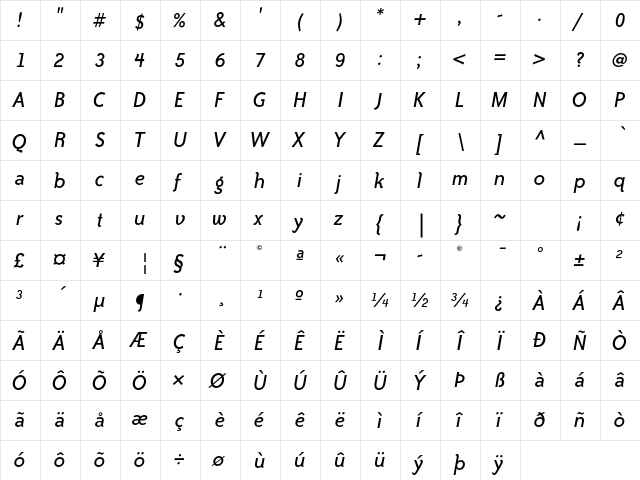
Bailey Sans ITC Std BookItalic Font Preview
Bailey Sans ITC Std BookItalic
| Designer | Kevin Bailey |
Design Context for Bailey Sans ITC Std Typeface
Bailey Sans ITC Std offers clean, dependable letterforms without strong stylistic allegiance, making it a practical choice for designers who need flexibility. The dynamic lean of this cut emphasises speed and emphasis in any layout.
Pro Tip: Use Bailey Sans ITC Std for emphasis, pull quotes, and subheadings where its slanted energy can add rhythm to the layout.